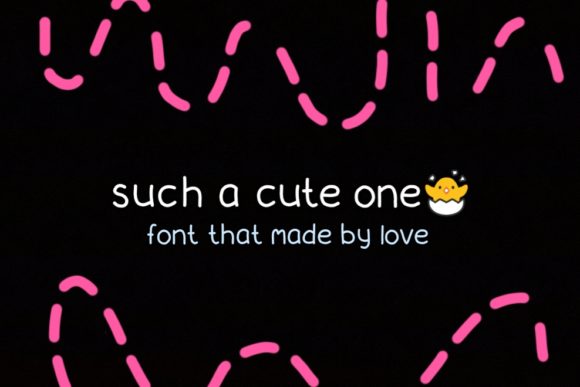
Such a Cute One Font
About Such a Cute One Font
Such A Cute One is an adorable and whimsical font with a unique twist. Get inspired by is youthful and playful charm!